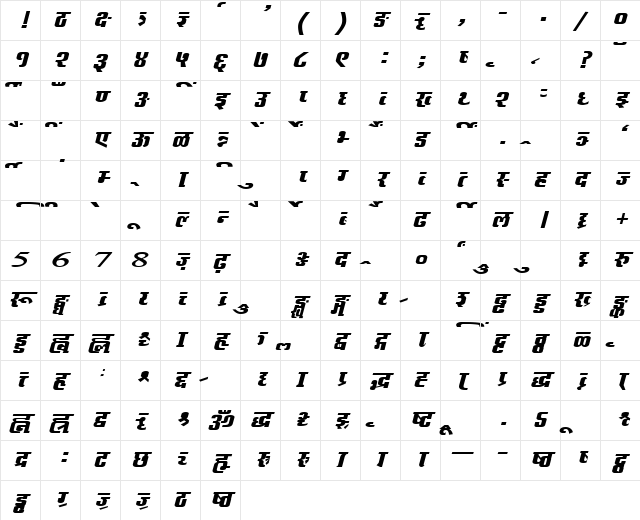
AkrutiDevAkshardhara BoldItalic Free Font
AkrutiDevAkshardhara BoldItalic
AkrutiDevAkshardhara Family
Design Context for AkrutiDevAkshardhara
AkrutiDevAkshardhara is a composed and adaptable typeface that performs quietly and consistently across a wide range of design contexts. The slanted form adds forward momentum and visual energy. Its bold stroke weight gives it real presence on the page.
Pro Tip: Use AkrutiDevAkshardhara for emphasis, pull quotes, and subheadings where its slanted energy can add rhythm to the layout.